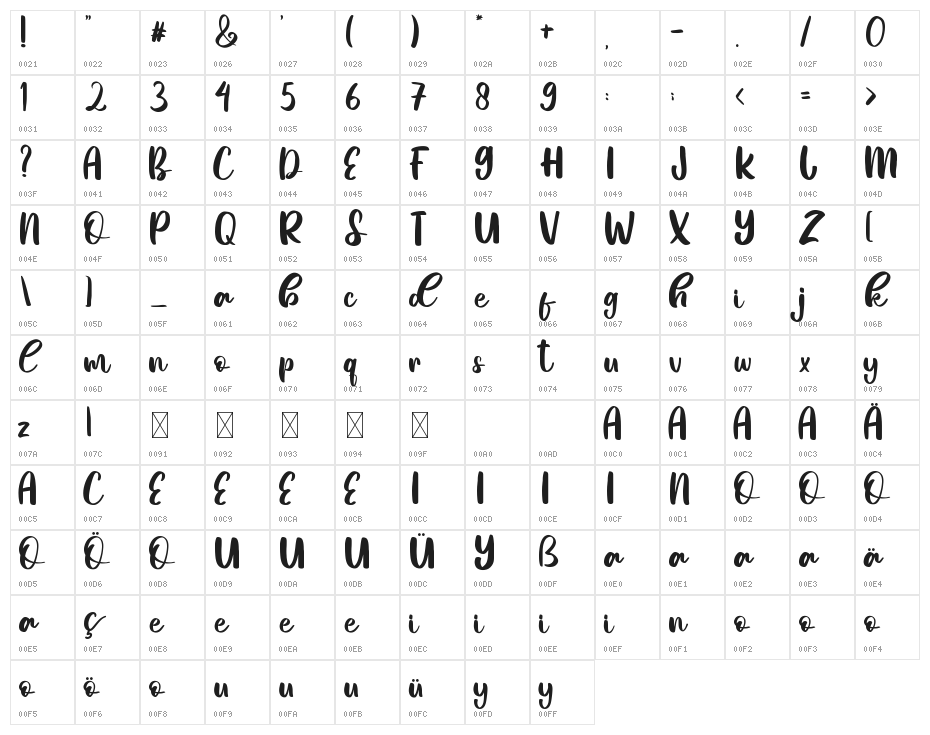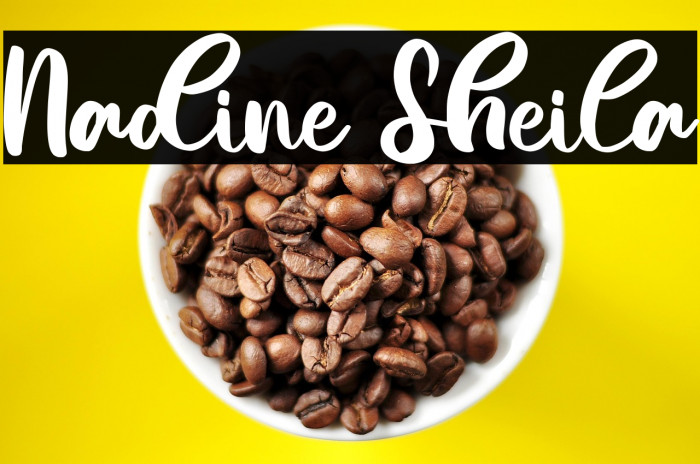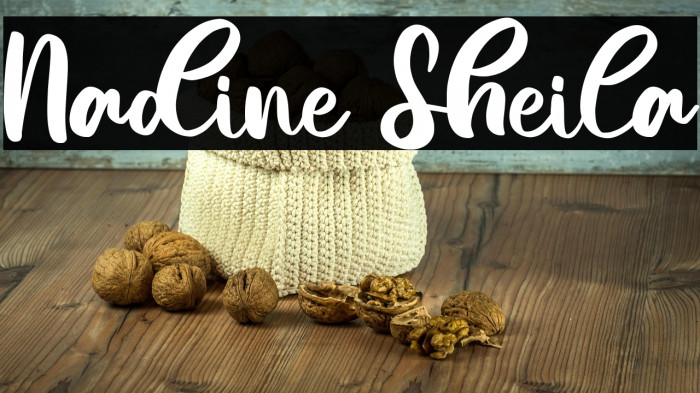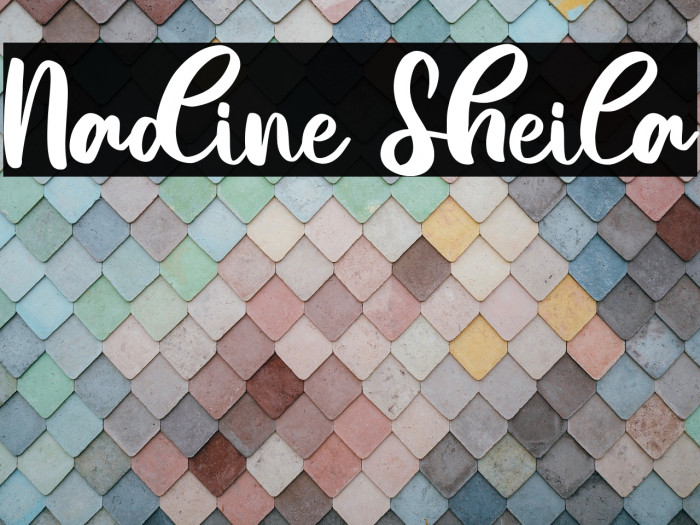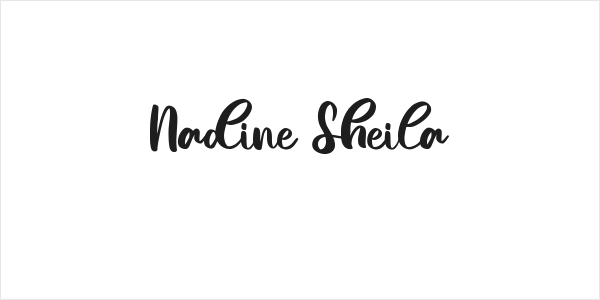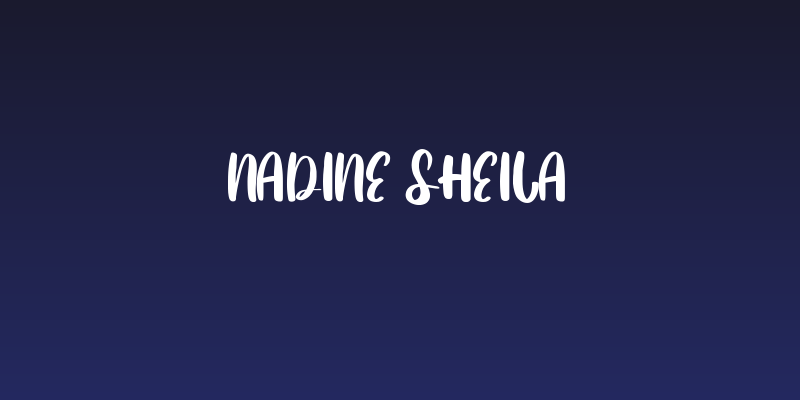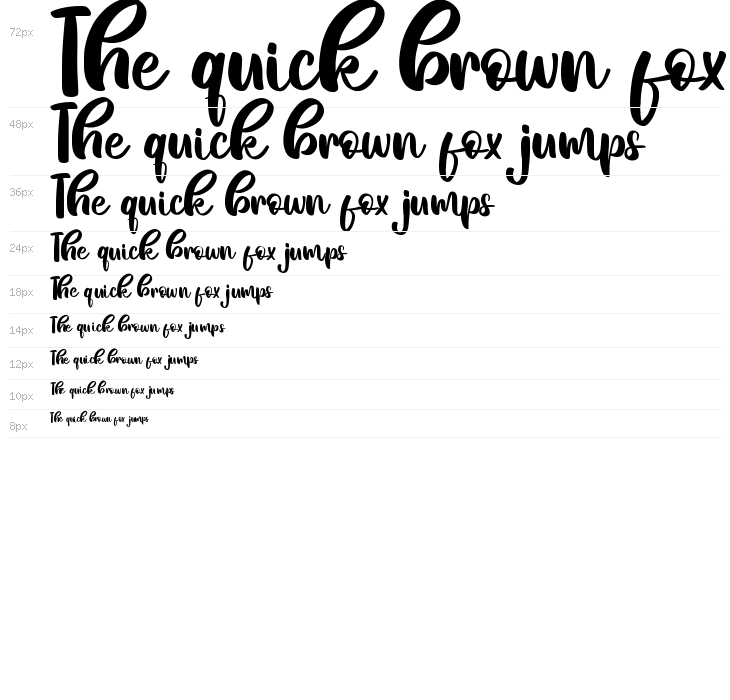
Nadine Sheila Font
Nadine Sheila Description
This font features a bold and playful script style with a handwritten appearance. The letters are connected, creating a fluid and dynamic look. The uppercase characters are tall and slightly narrow, while the lowercase letters maintain a consistent flow with rounded edges. The numbers and special characters complement the overall style, adding a touch of whimsy. This font is ideal for projects that require a personal and friendly touch, such as invitations, greeting cards, or branding materials. Its bold strokes and smooth curves make it stand out, ensuring readability while maintaining an artistic flair.
Use CaseLogos, Headlines, Creative projects
Proposed ProjectsIdeal for invitations, greeting cards, branding, and creative projects.